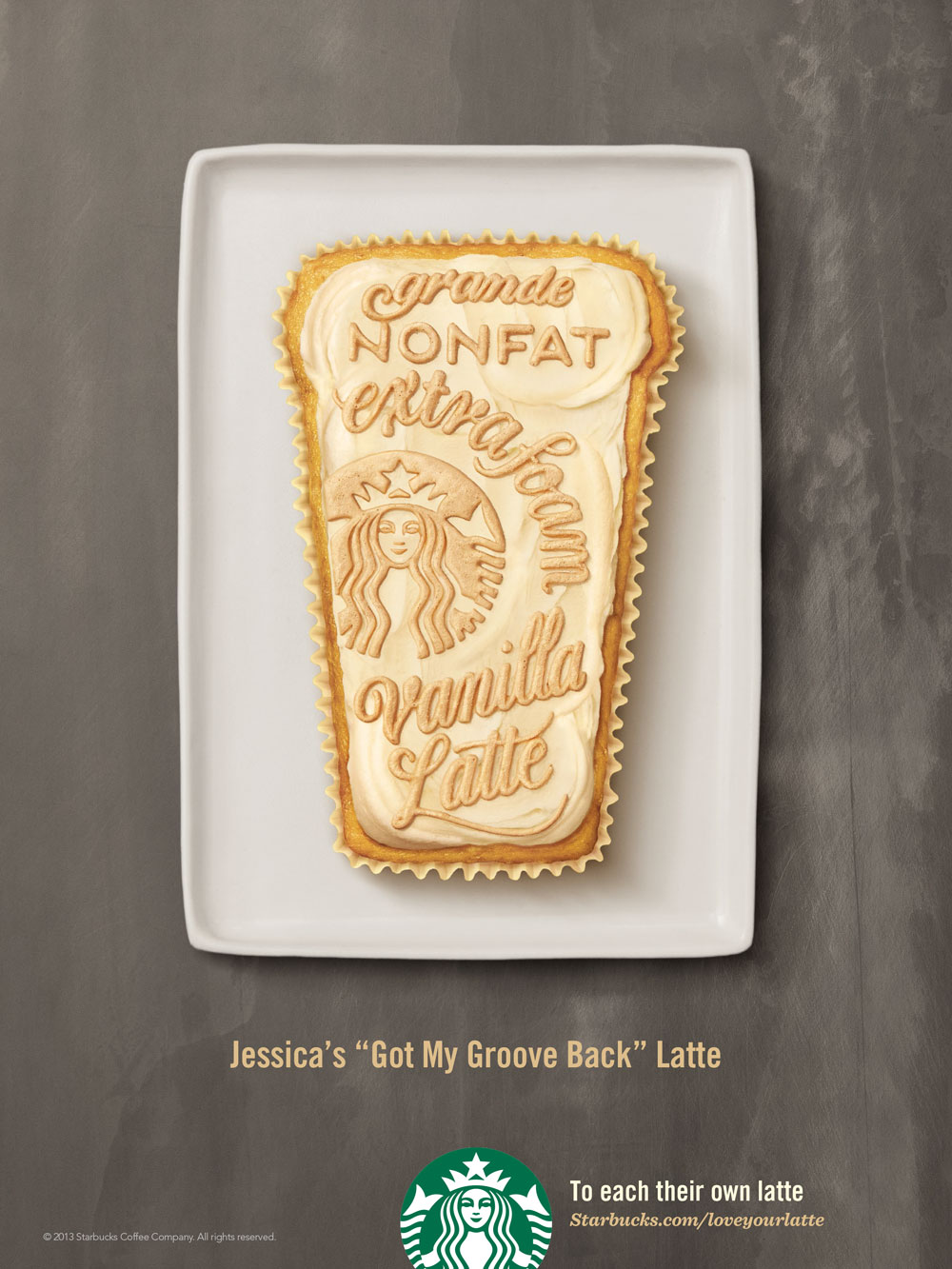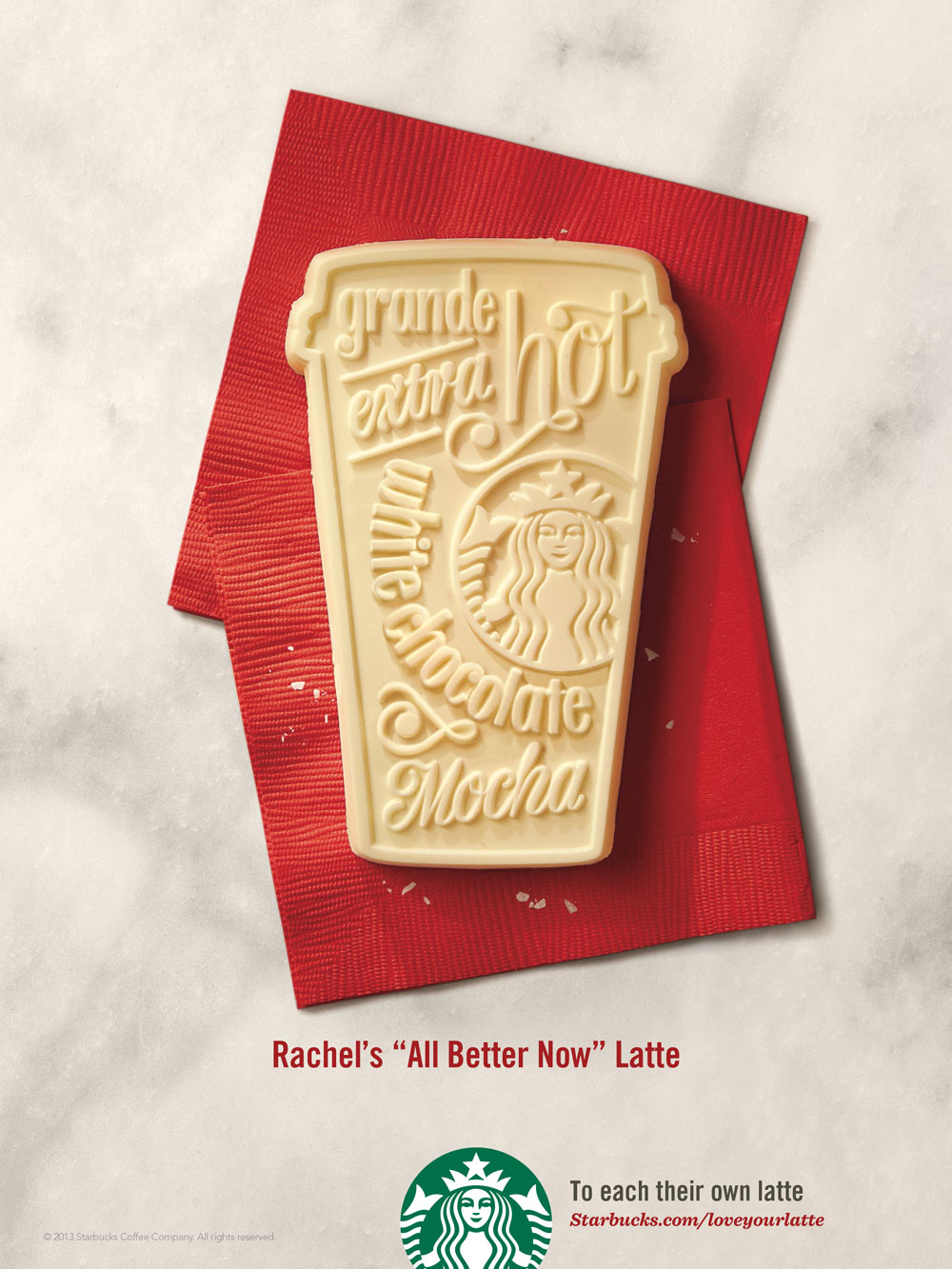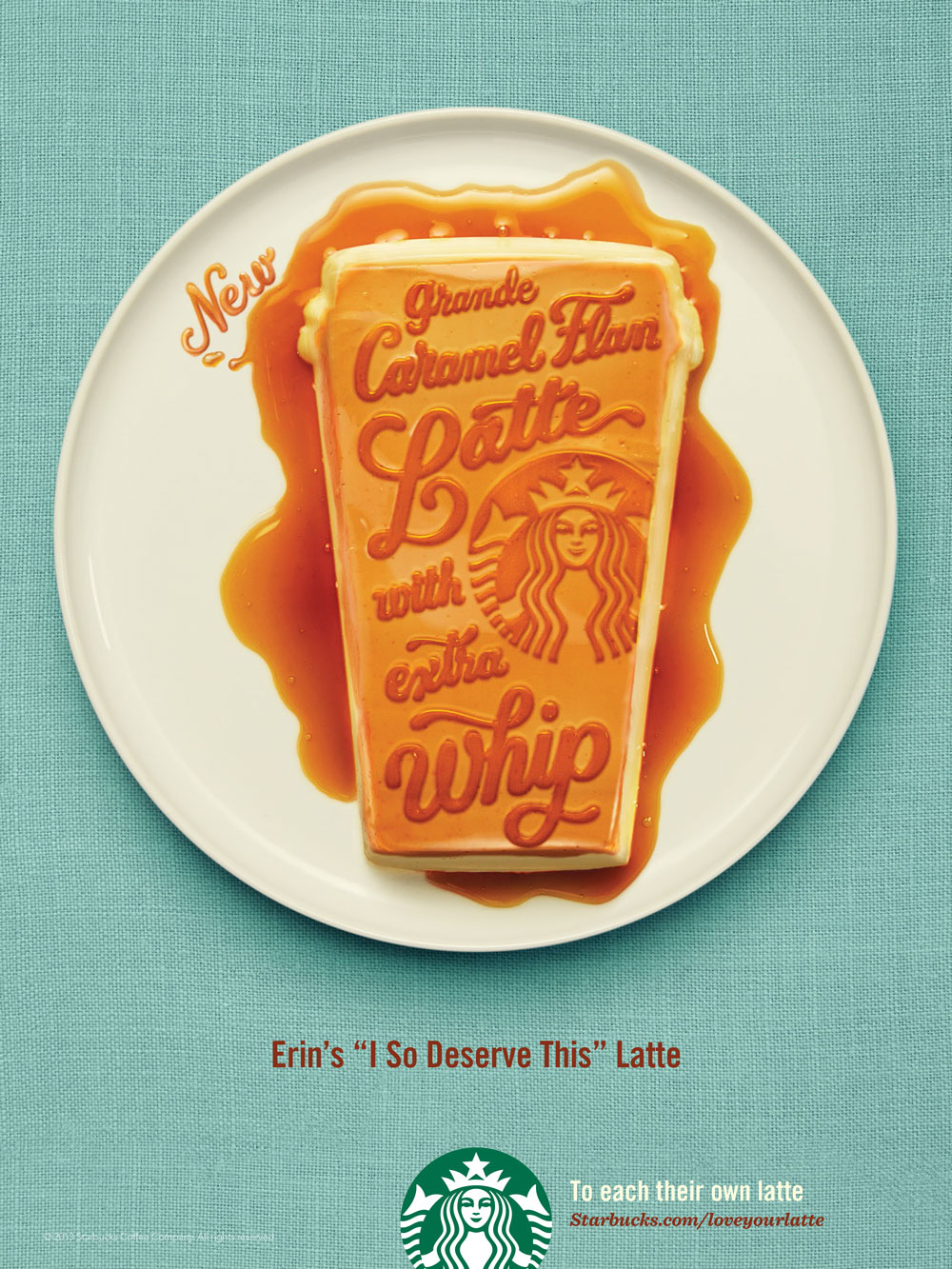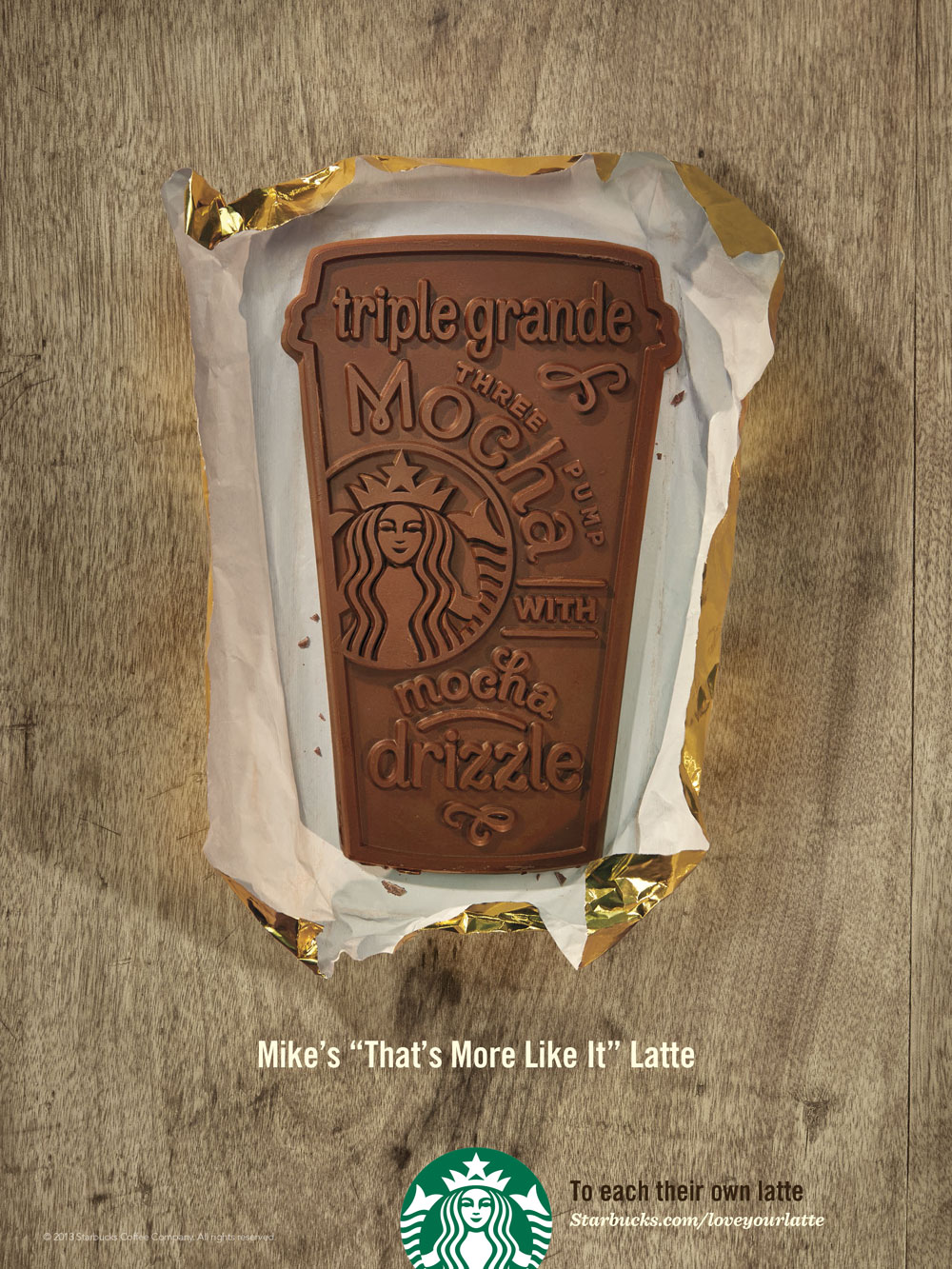
BBDO for Starbucks
Advertising companies use type, sometimes in good sometimes in bad ways. Lately more and more are adressing to external type-experts in order to provide them with their knowledge, skills and customizations on their running projects. In this case, Jessica Hische collaborated with the BBDO advertising company and designed the new Starbucks campaign, creating some really inspiring and tasteful lettering compositions.